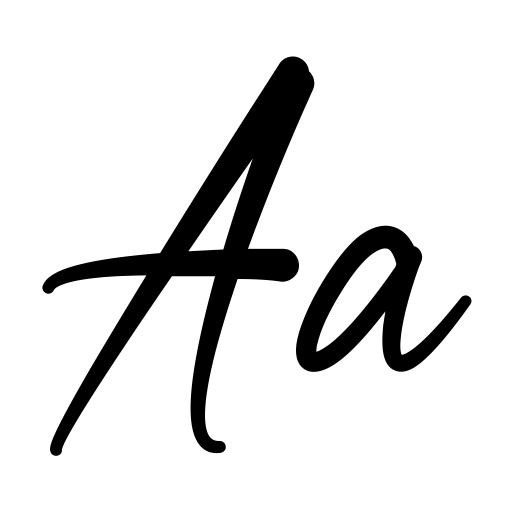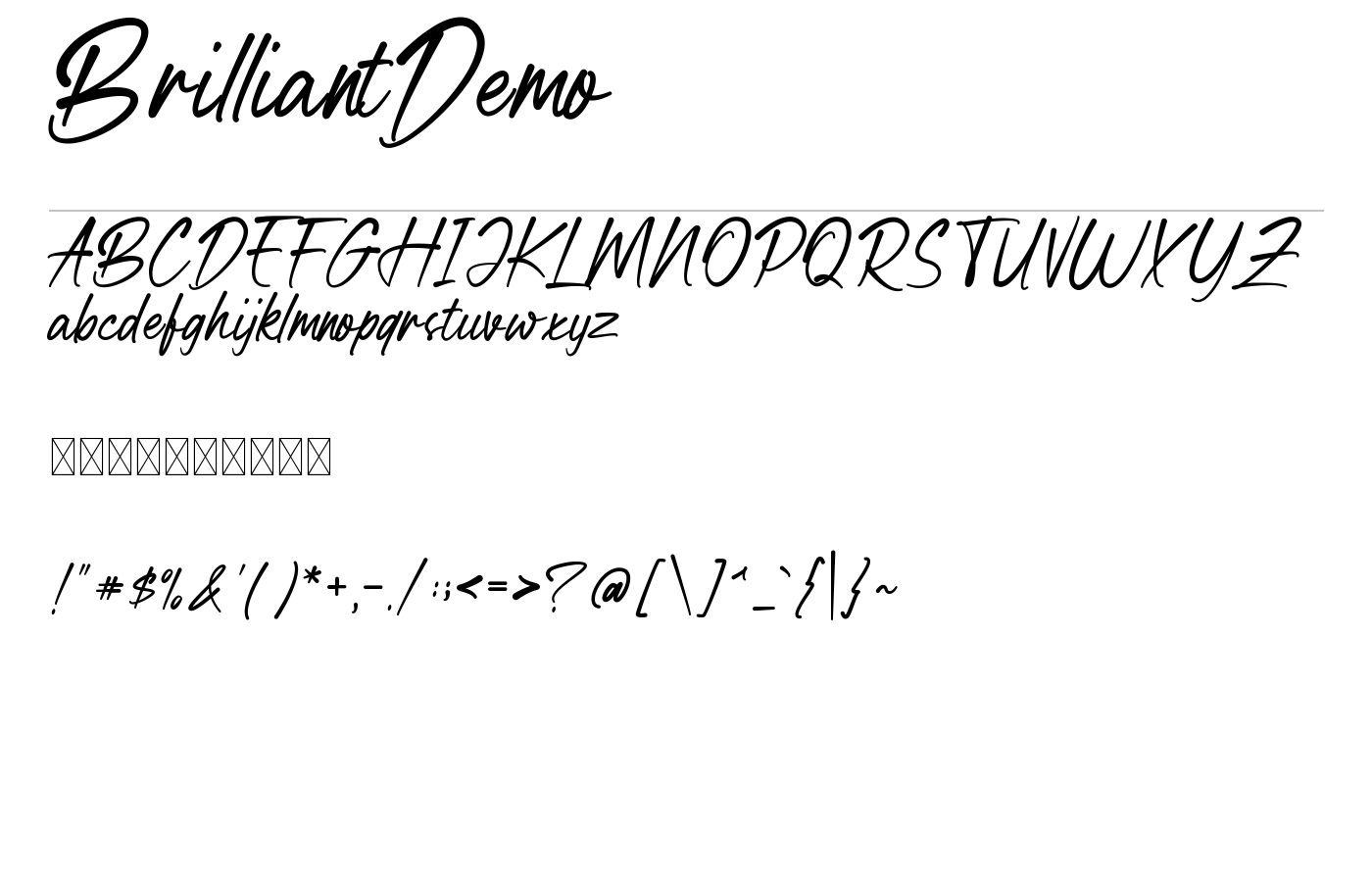
BrilliantDemo Font is a lively and elegant script font featuring fluid, handwritten letterforms with moderate weight and natural stroke variations that add a personal touch. Its narrow width and slightly slanted style make it perfect for creative branding, invitations, or headlines where a sophisticated yet approachable feel is desired. This font brings warmth and charm to designs, enhancing projects that aim to convey friendliness and elegance.
BrilliantDemo Font
About BrilliantDemo Font